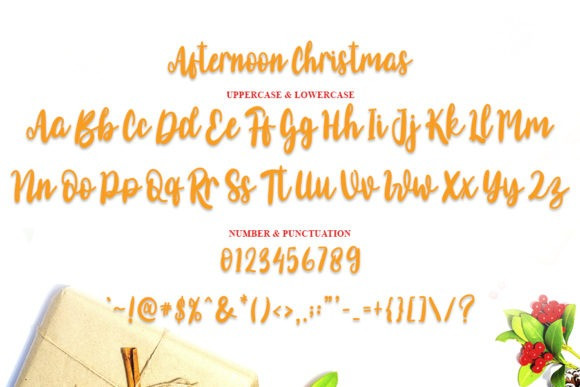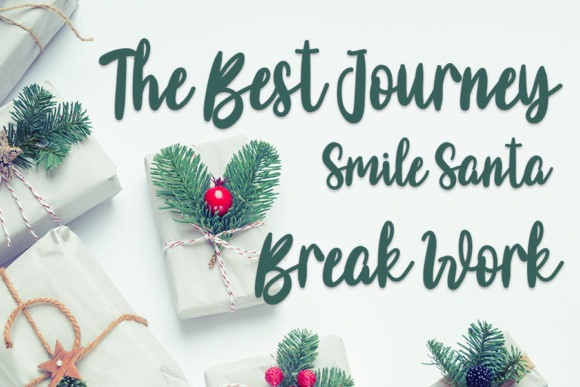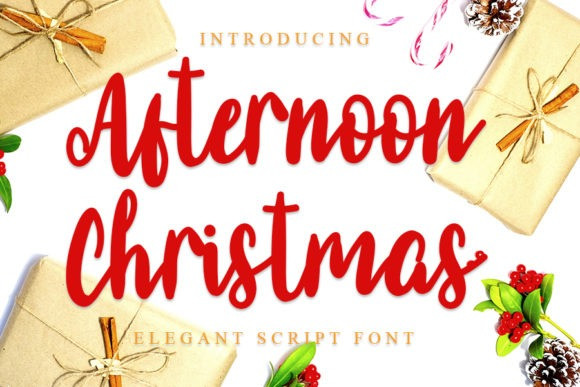
Afternoon Christmas Font
Afternoon Christmas Script Font is a friendly, fresh, rich, and elegant handwritten font. It is ideal for holiday-themed greeting cards and for any crafting project that requires a romantic touch.